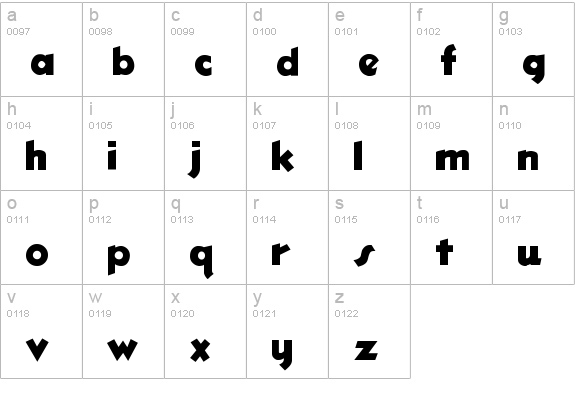
Introducing Hotshot font, a dynamic and eye-catching typeface that exudes confidence and style. With its bold and modern design, Hotshot is perfect for making a statement in headlines, logos, and branding projects. This versatile font is sure to grab attention and leave a lasting impression on your audience. What's more, Hotshot is available for free download at FontsMarket.com, making it easily accessible for designers and creatives looking to add a touch of flair to their projects. Don't miss out on the opportunity to elevate your designs with this striking and impactful font. Download Hotshot today and unleash your creativity!